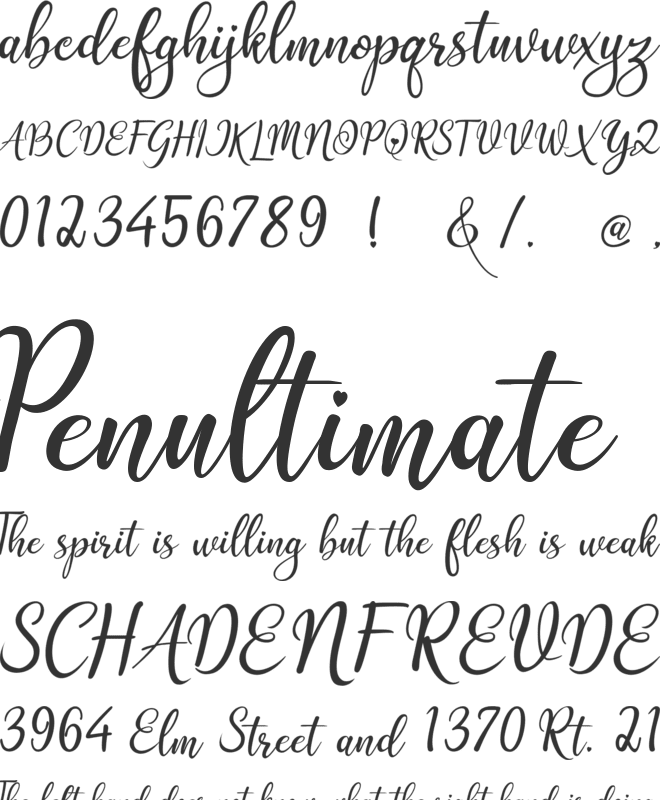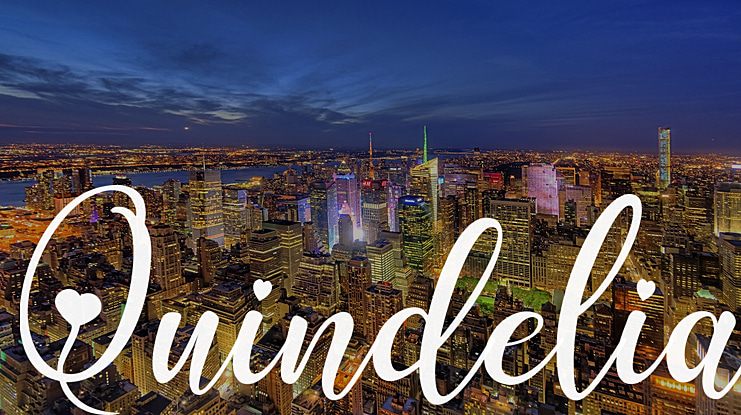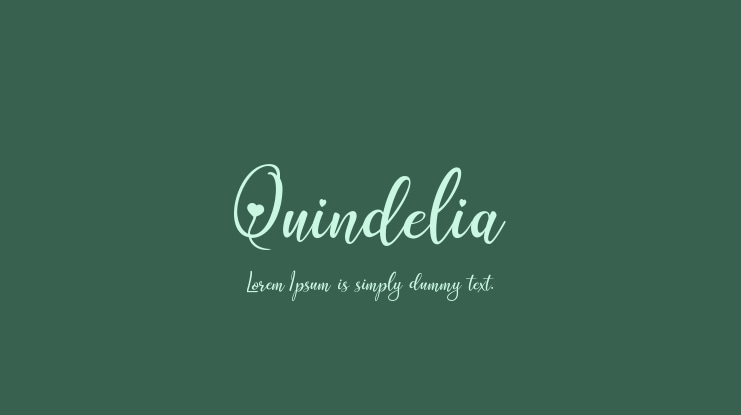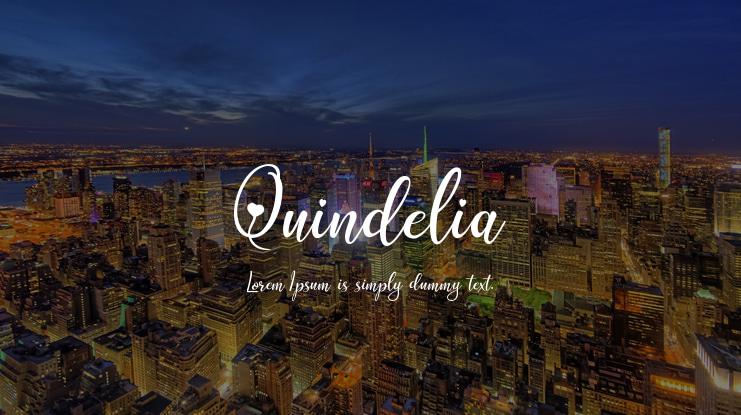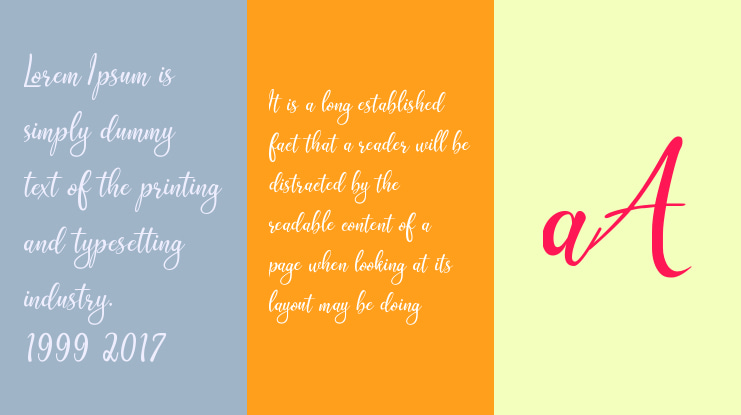
Quindelia Font
Oki Candra Setiawan
Introducing my new font, Quindelia Font made with a pen brush refined to look neat. like dance letters, smooth, clean and simple.
Quindelia Font are perfect for weddings, events, invitations, escort cards, table numbers, Quotes, displays, logos, blog sliders, special addresses, stamps, packaging, greeting cards, etc.